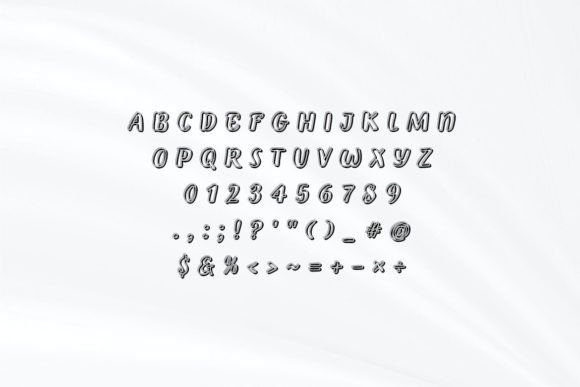
Introduction to Penico Font
Penico is an incredibly quirky and sweet display font.
Whether you use it for cartoon related designs, children games or just any creation that requires a lovely touch, this font will be an amazing choice .